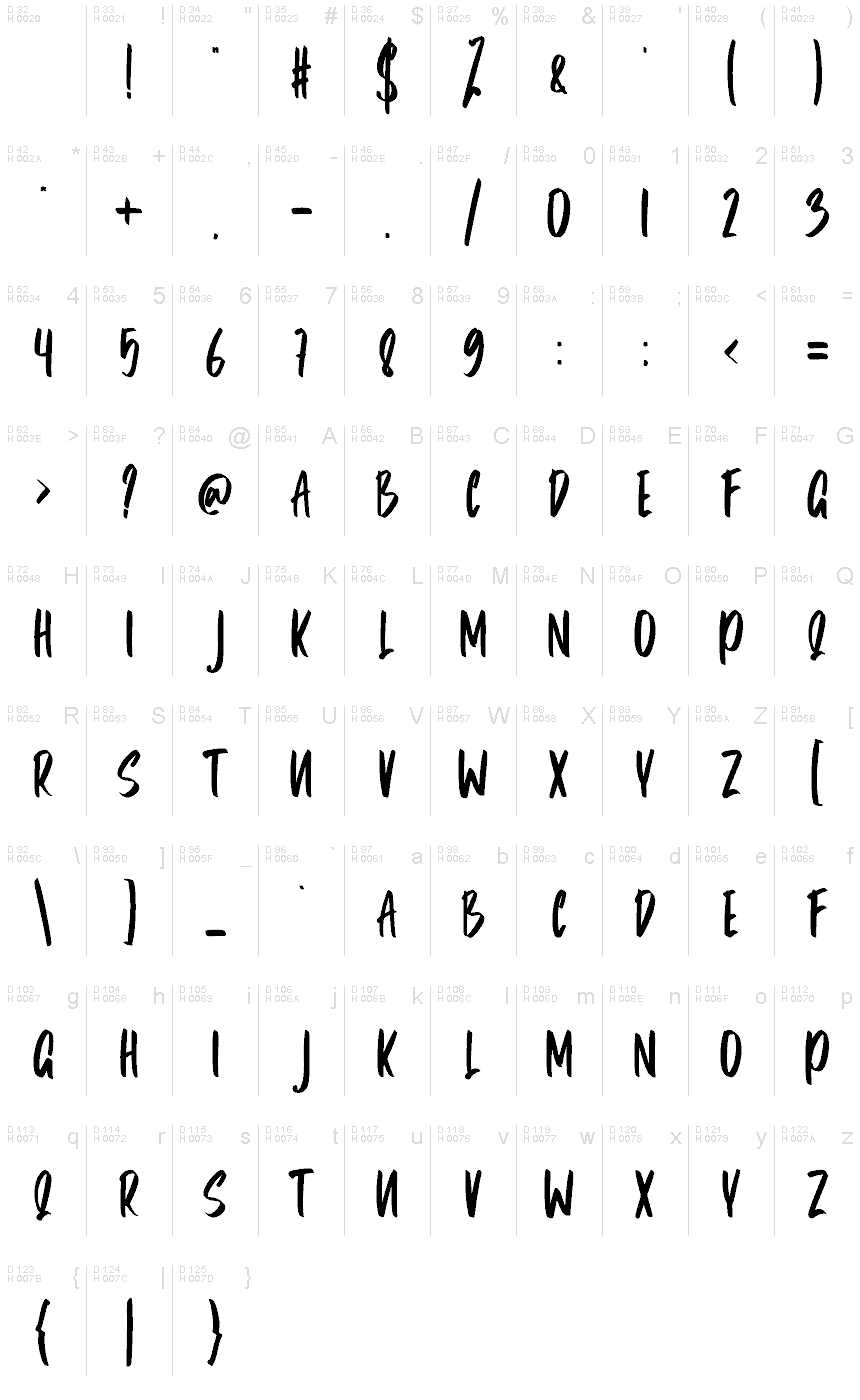
Dugery
Dugery font is a handwritten and condensed creation by Skiiller Studio that instantly captures attention. Expressive with a modern bold appearance, it carries an artistic flair for presenting eye-catching headlines. With its strong impact, Dugery will serve as the proper weapon for displaying titles, headings, and subheadings.
Energize your banners & social media covers or posts with this free handwritten font. Dugery can further be used in product packaging, poster design, T-shirt design, business cards and other printed materials. Think of any surface where you wish to leave a permanent inspiring impression on your audience!